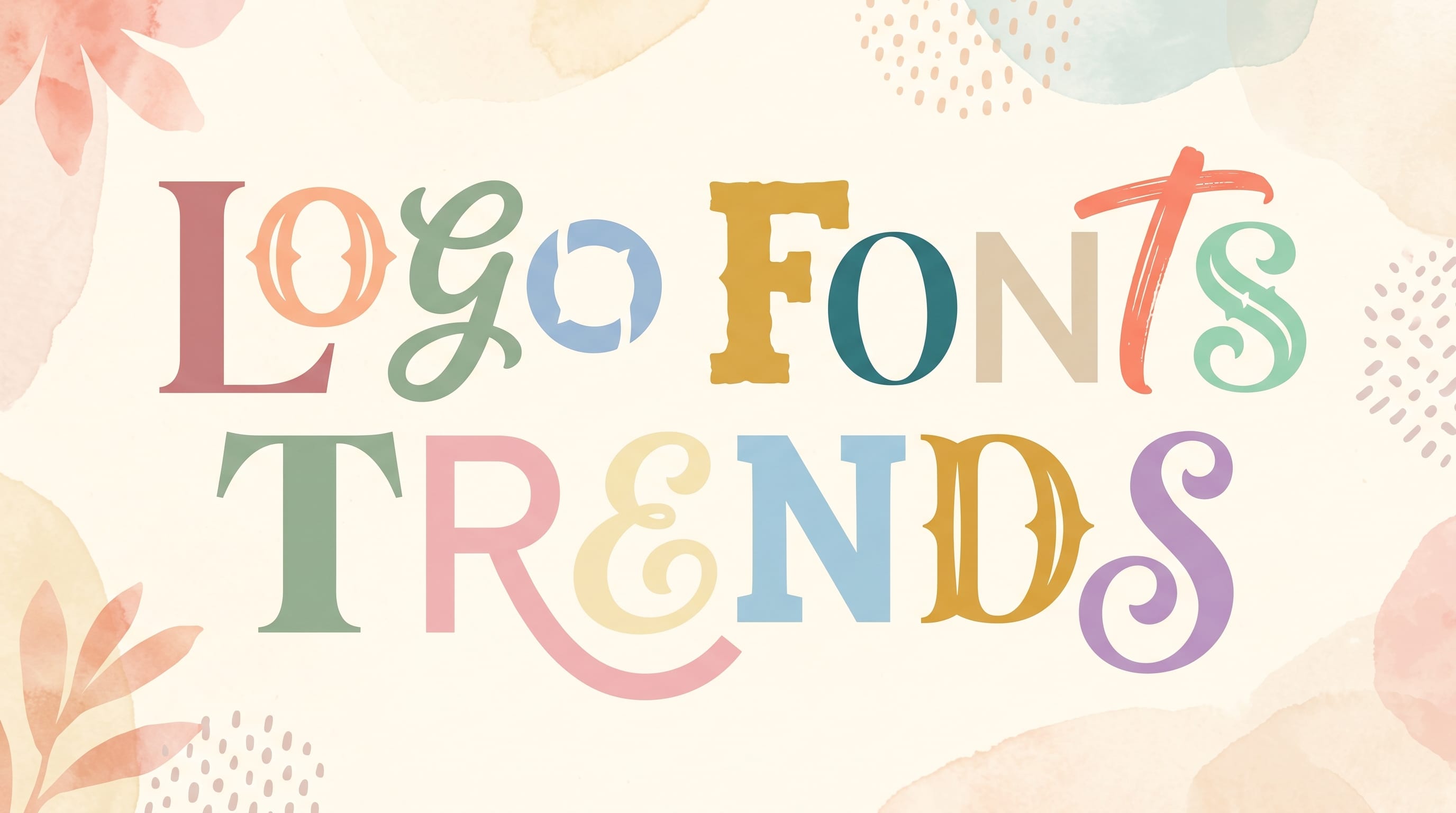
Logo Fonts Trends for Designers Who Want Better Results
Understanding modern logo fonts trends is essential for designers who want to create memorable and effective branding. Typography plays a major role in how people perceive a brand, and the right font choice can instantly communicate personality, style, and professionalism. Following current logo fonts trends helps designers stay relevant while creating logos that stand out in competitive markets.
In this guide, you’ll explore the latest logo fonts trends, practical typography strategies, and font pairing ideas inspired by DM Letter Studio styles. Whether you are creating logos for fashion brands, cafés, tech startups, or lifestyle businesses, these logo fonts trends can help you achieve better results.
Why Logo Fonts Trends Matter in Branding
Modern logo fonts styles influence how audiences connect with a brand.
• Strong visual identity
• Better brand recognition
• Improved emotional connection
When designers understand logo fonts styles, they can create logos that feel modern and memorable.
Minimal Sans Serif Logo Fonts Trends
Minimal typography remains one of the strongest logo fonts styles.
1. Clean Letterforms
Simple shapes create timeless branding.
2. Balanced Spacing
Improves readability and professionalism.
3. Modern Appearance
Works well for startups and technology brands.
Minimal logo fonts styles help brands look clean and modern.
Bold Serif Logo Fonts Trends
Bold serif typography is growing in modern logo fonts styles.
1. Elegant Character
Creates premium and sophisticated branding.
2. Strong Visual Impact
Makes logos feel confident and memorable.
3. Vintage Influence
Combines classic and modern aesthetics.
These logo fonts styles are ideal for luxury and editorial brands.
Handwritten and Signature Logo Fonts Trends
Personalized typography is becoming popular in logo fonts styles.
1. Authentic Branding
Creates emotional connection.
2. Elegant and Creative Feel
Perfect for lifestyle and beauty brands.
3. Unique Identity
Adds personality to logos.
These logo fonts styles help brands feel more human and expressive.
Retro Inspired Logo Fonts Trends
Vintage aesthetics continue influencing logo fonts styles.
1. Classic Serif Typography
Creates nostalgic branding.
2. Display Fonts
Add bold vintage personality.
3. Distressed Effects
Enhance retro authenticity.
Retro-focused logo fonts styles work well for cafés, fashion, and barbershops.
Experimental Typography Logo Fonts Trends
Creative layouts are shaping modern logo fonts styles.
1. Custom Letterforms
Create unique visual identity.
2. Mixed Font Styles
Combine serif and sans serif creatively.
3. Abstract Typography
Adds artistic personality.
Experimental logo fonts styles help brands stand out visually.
Font Pairing Suggestions Based on DM Letter Studio Styles
Typography pairing is an important part of modern logo fonts styles. Based on DM Letter Studio-inspired styles, these combinations work especially well:
1. Elegant Serif + Signature Script
Creates premium and stylish branding.
Font Suggestions:
Floral Charm Monogram
Ronallatie - Elegant Signature Font
Florynthia Monogram
Bambang - Signature Font
Best for:
• Fashion brands
• Beauty products
• Luxury logos
2. Vintage Display + Modern Sans Serif
Balances retro aesthetics with readability.
Font Suggestions:
Oamphie Vintage
Melvick Font
ROSA - Classy Sans Serif
Best for:
• Retro cafés
• Music branding
• Streetwear logos
3. Handwritten Script + Classic Serif
Creates warm and handcrafted branding.
Font Suggestions:
Hellena - Handwritten Script Font
Florena Monogram
Nuptalia
Rosalyn Circle Monogram
Best for:
• Rustic bakery brands
• Handmade businesses
• Lifestyle branding
4. Brush Font + Minimal Sans Serif
Adds energetic personality while keeping balance.
Font Suggestions:
The Lumion
Trevor Font
New Austin
ROSA - Classy Sans Serif
Best for:
• Sports branding
• Festival logos
• Creative apparel brands
5. Bubble Display + Soft Serif
Creates playful and nostalgic branding.